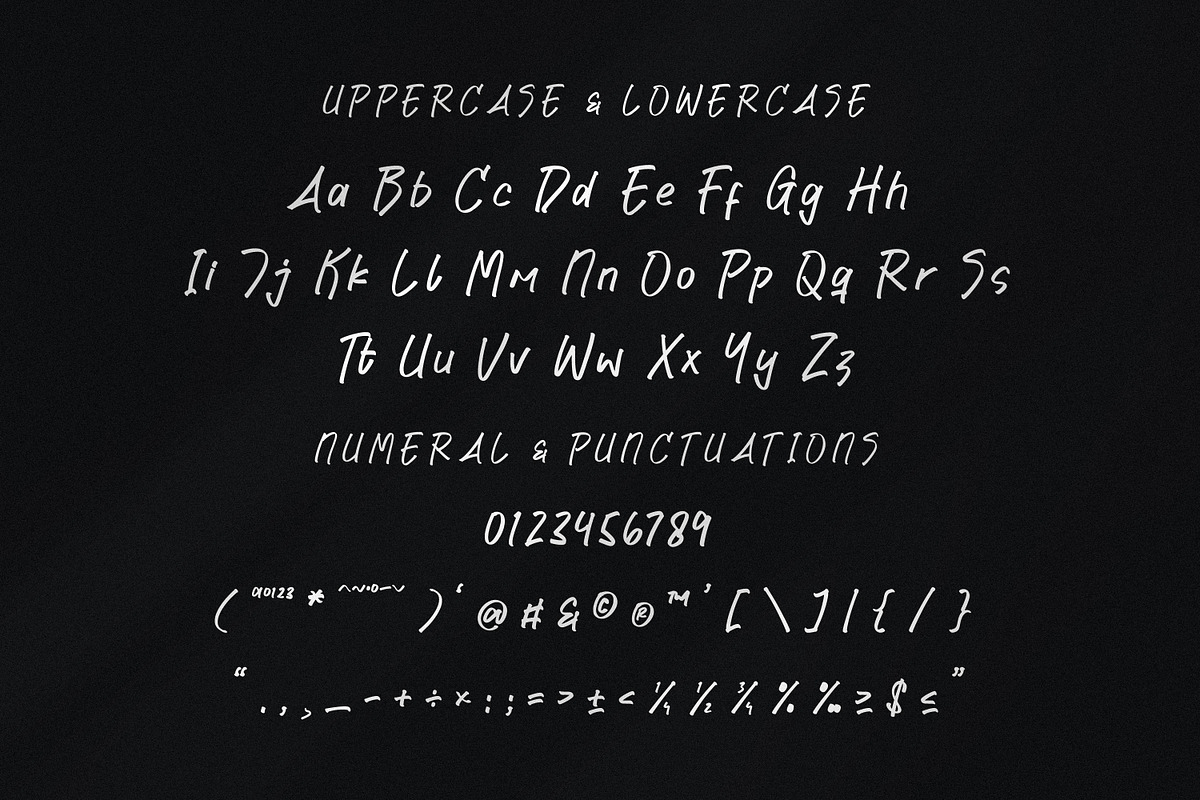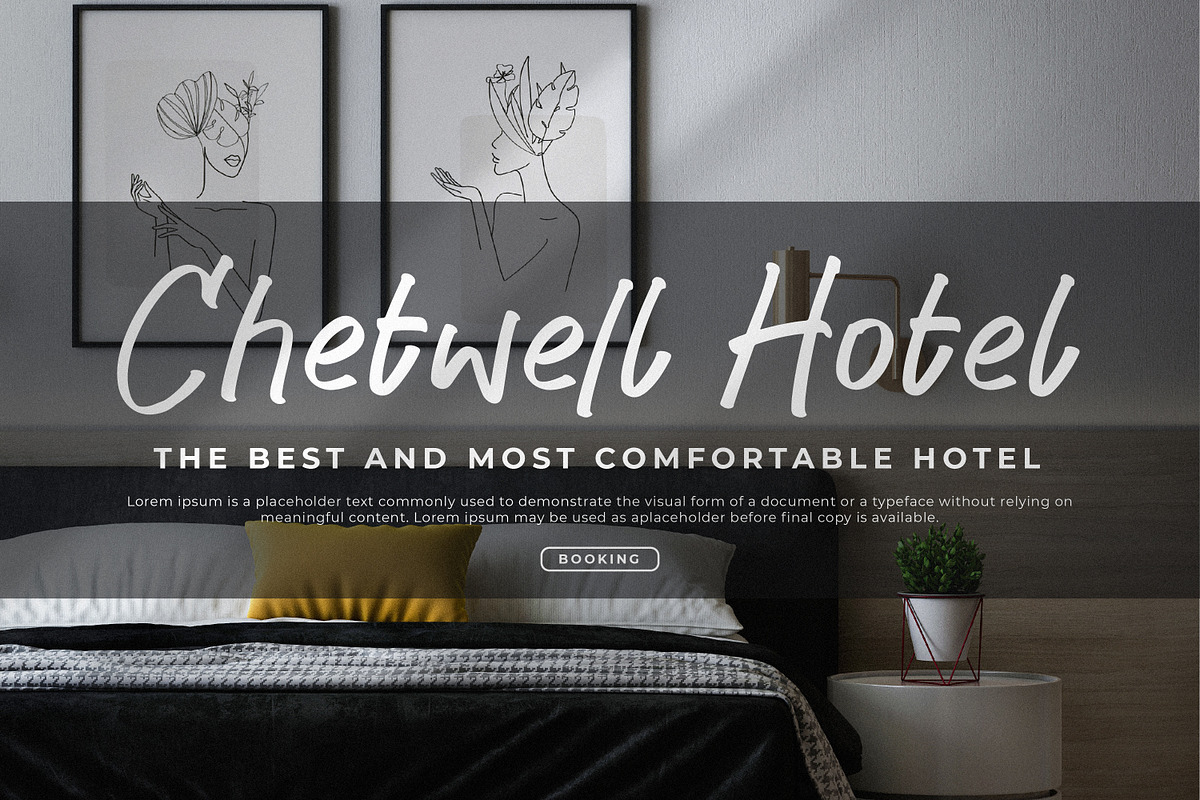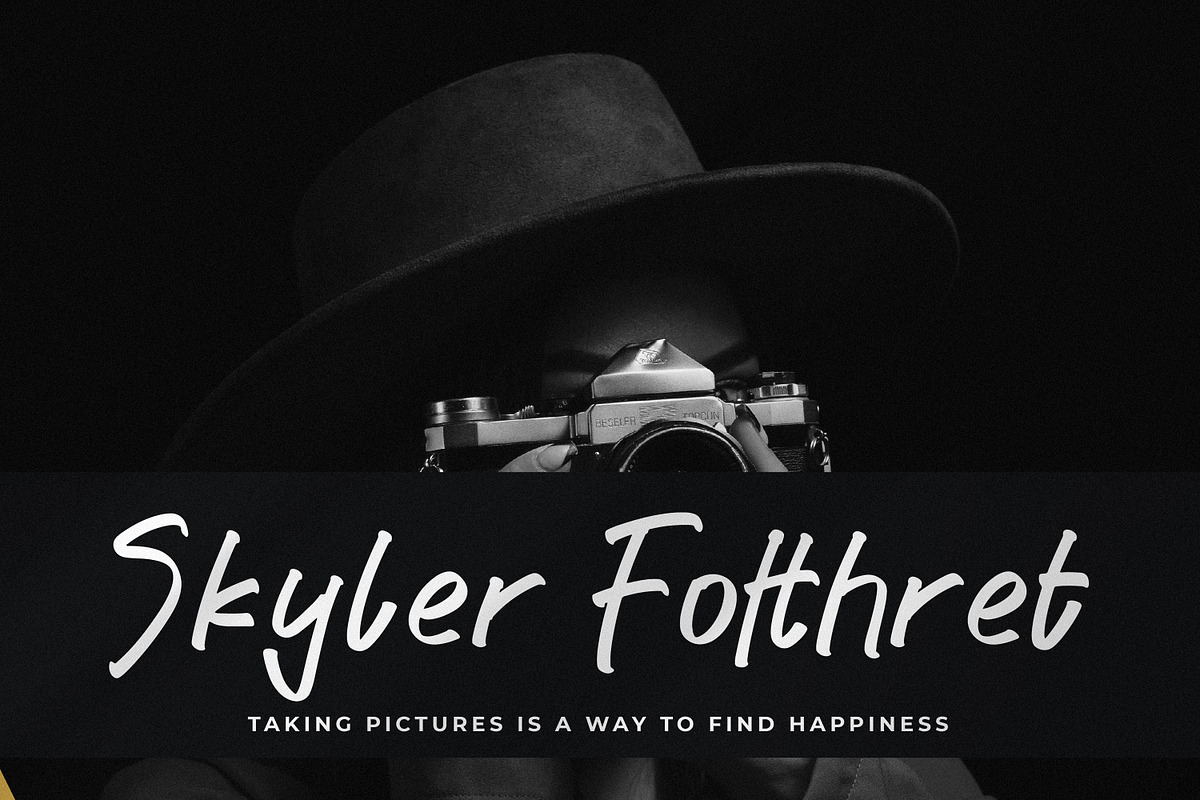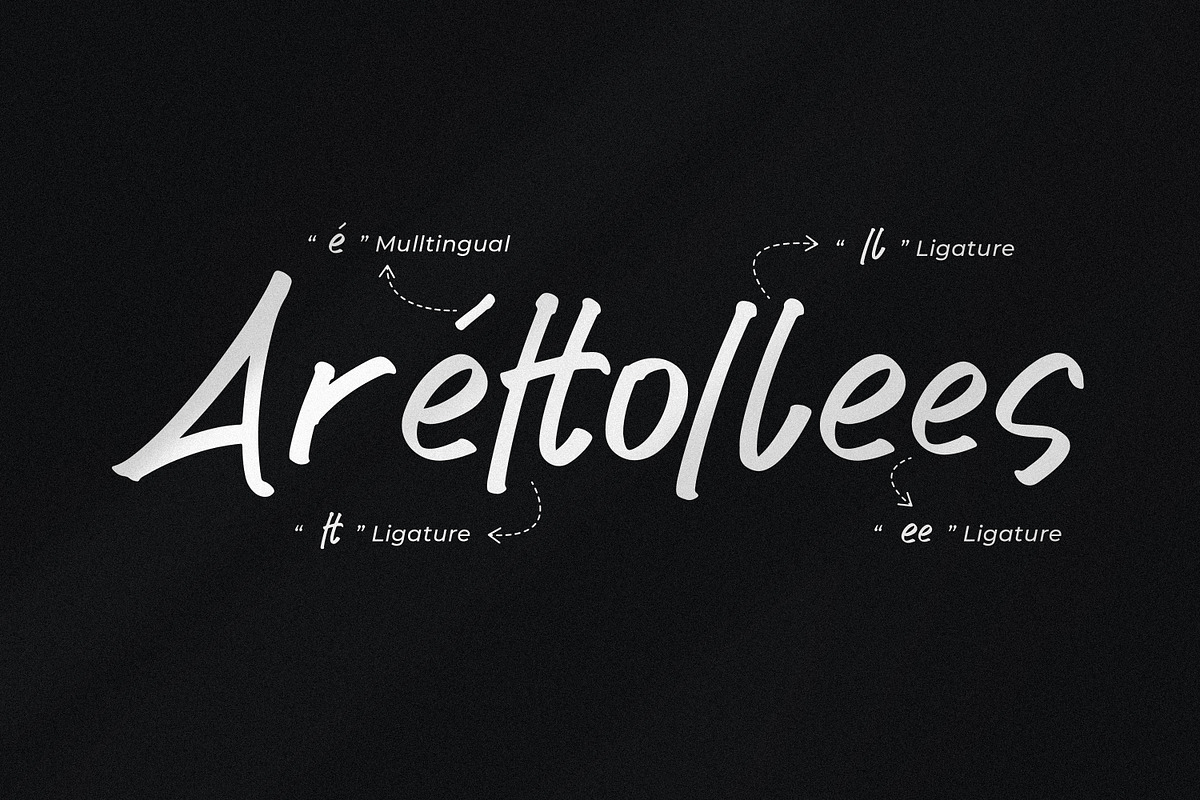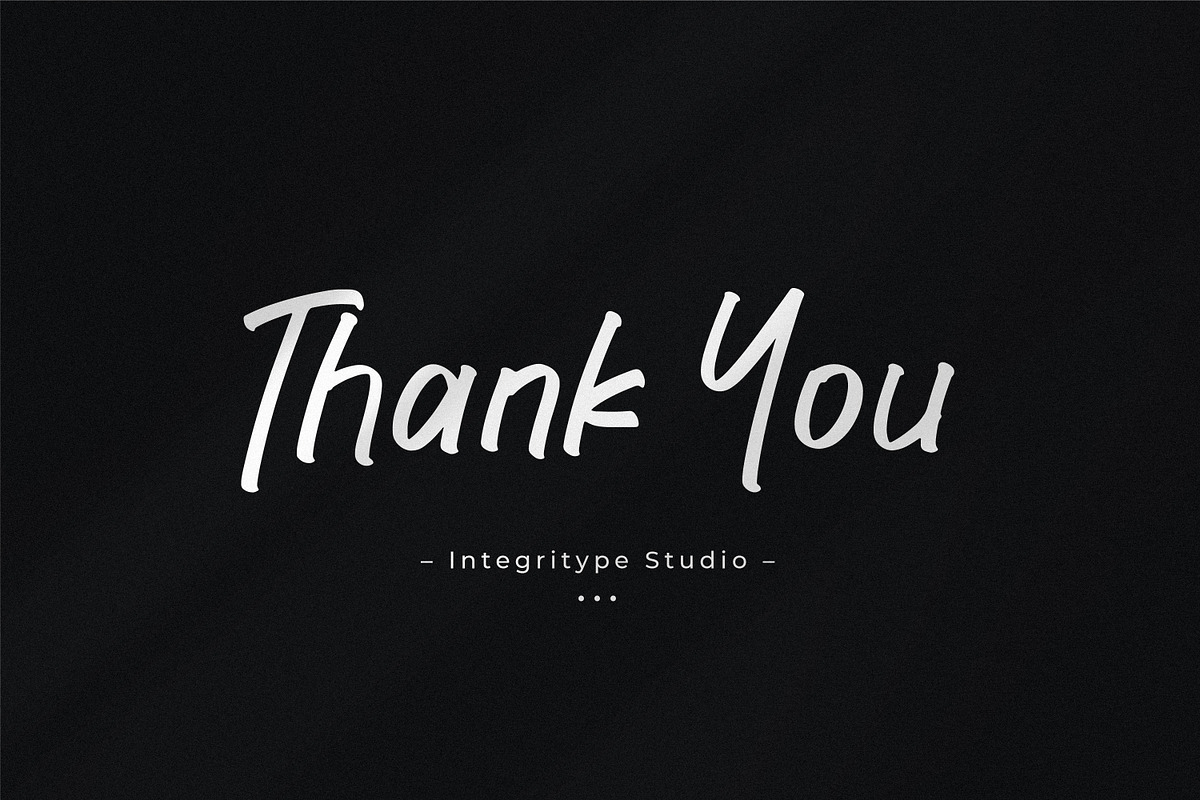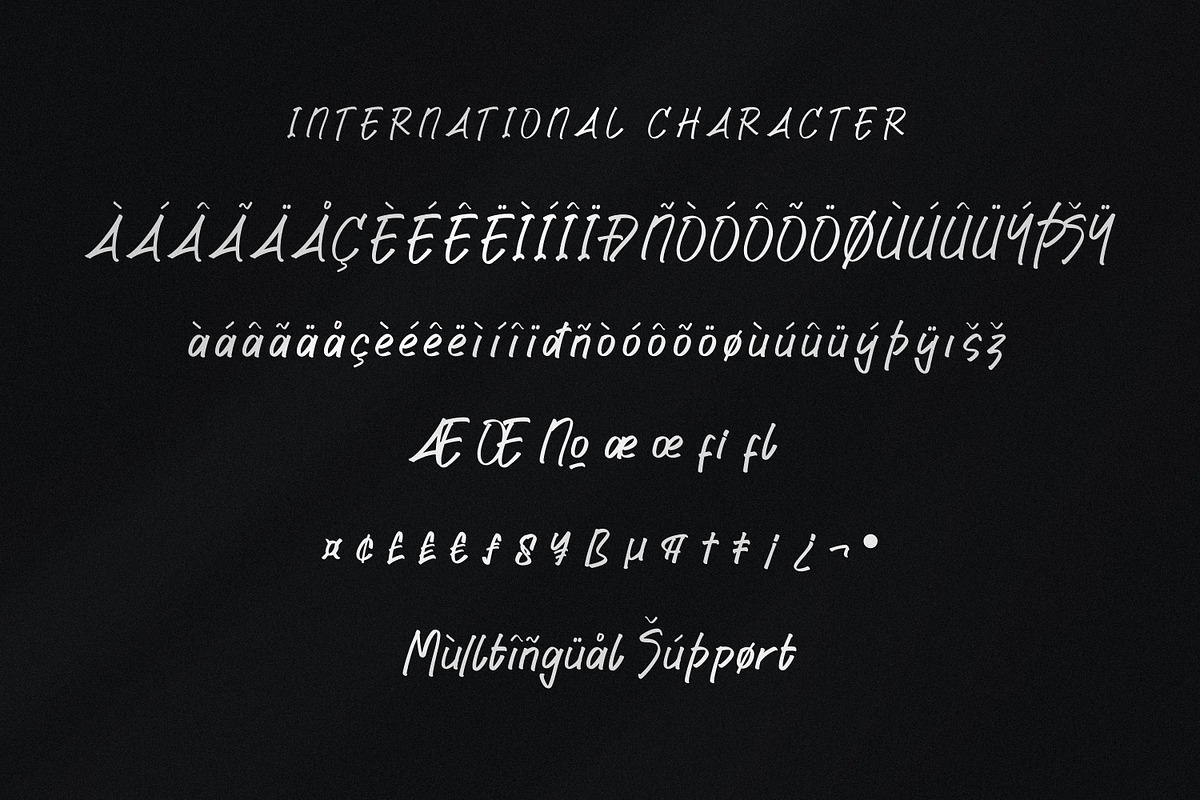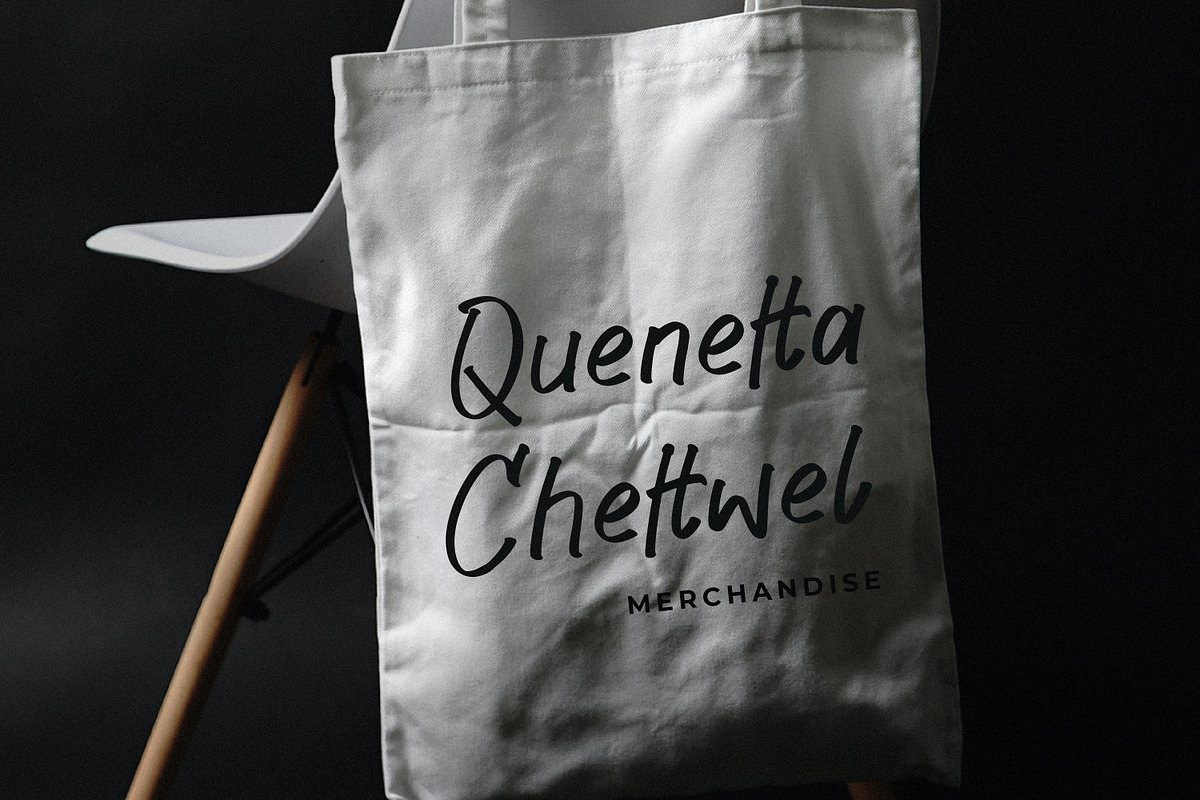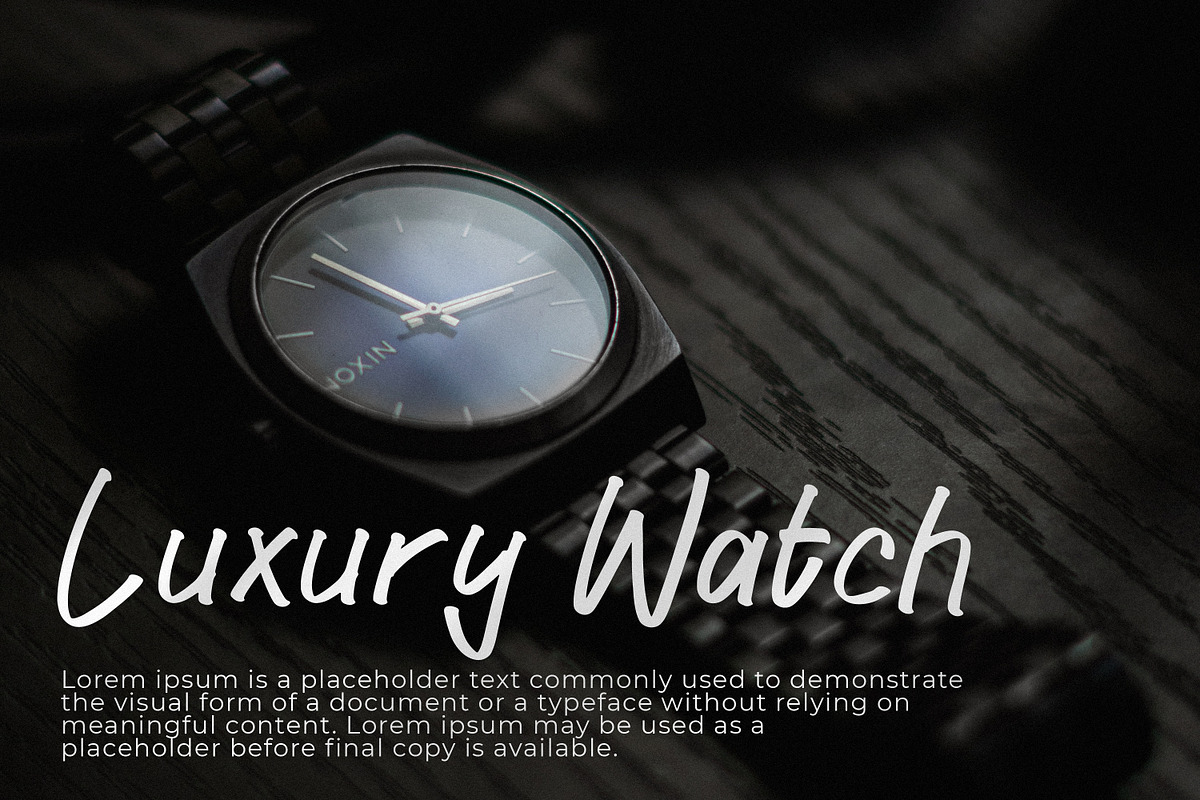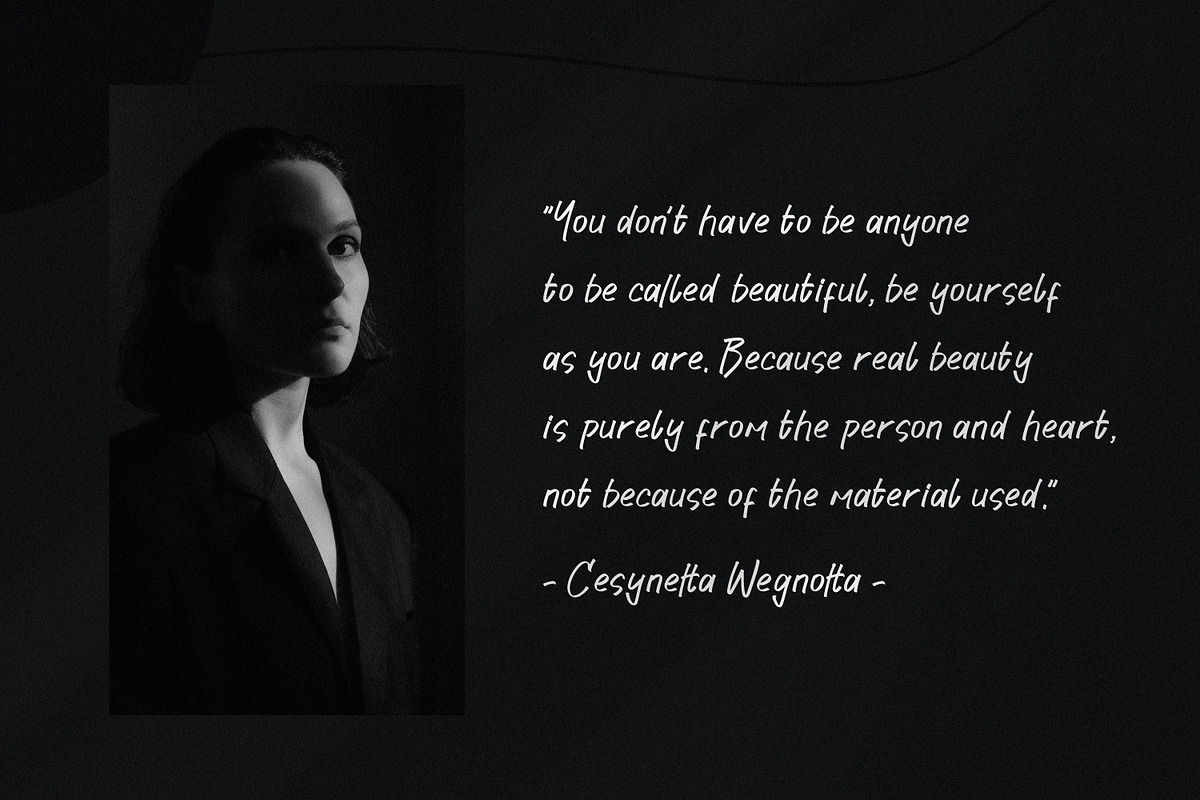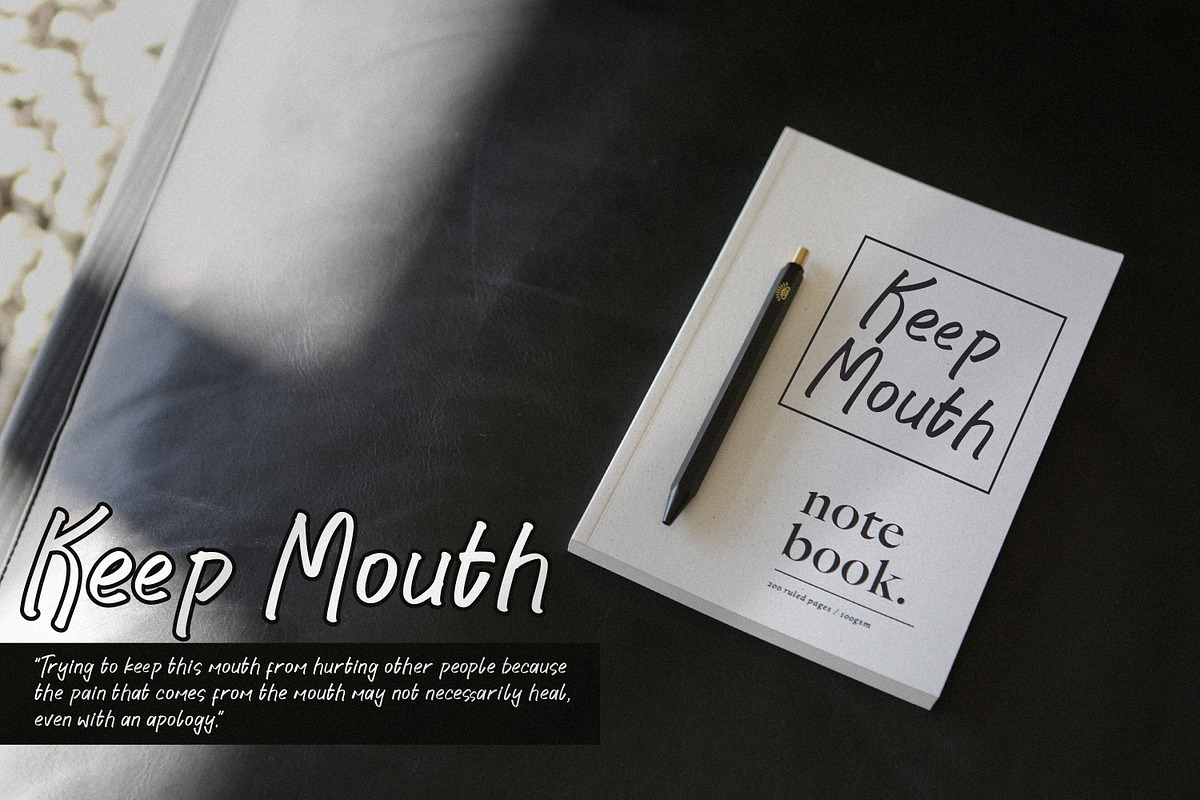
Liquell Monetta
Liquell Monetta - Modern Handwritten Font, from Integritype Studio, is a premium Modern Handwritten Font, suitable for any projects such as: logos, branding projects, homeware designs, product packaging, mugs, quotes, posters, shopping bags, t-shirts, book covers, name card, invitation cards, greeting cards, label, photography, watermark, special events, and all your other luxury projects that need a premium signature taste.
Ligature, Alternate & Swashes